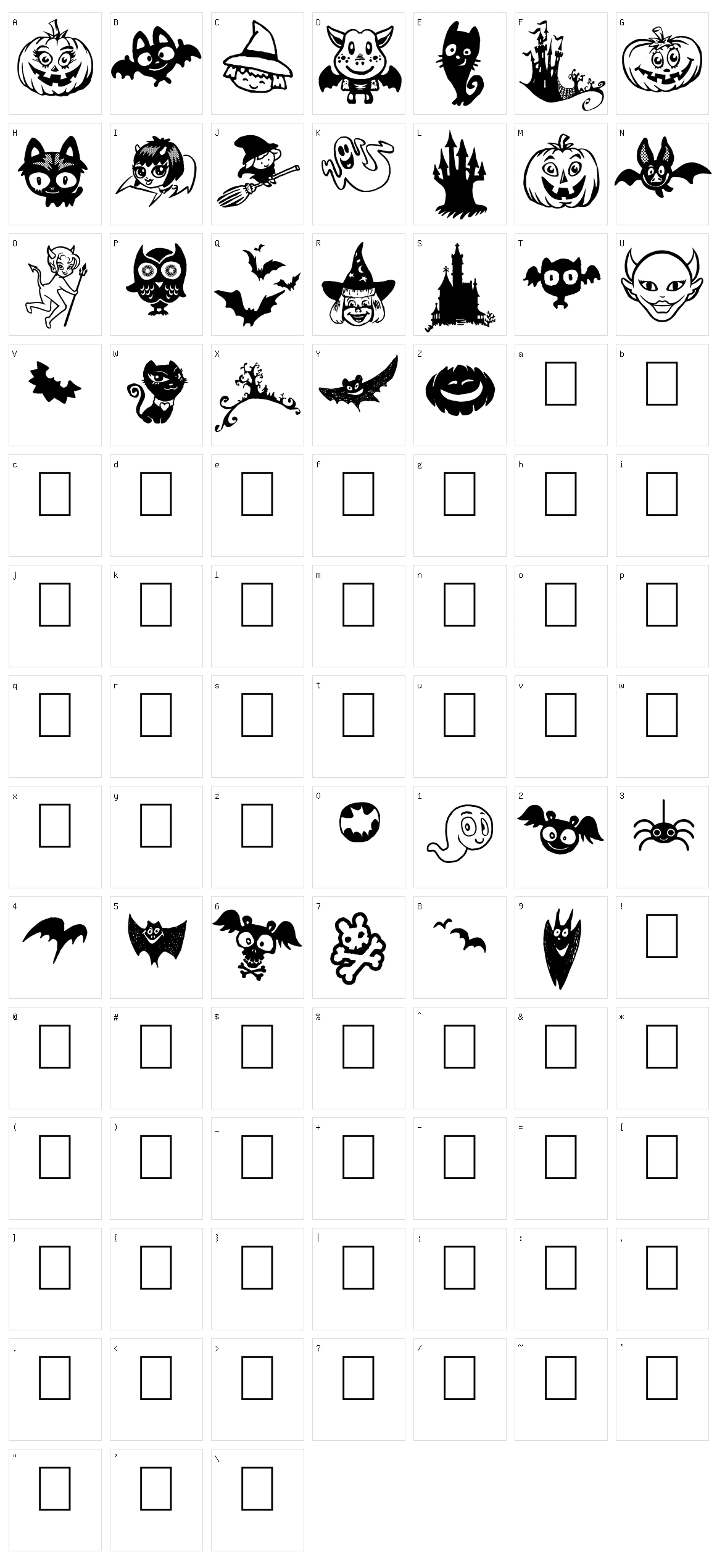
The free font HalloCuties is carefully designed by imagex, showcasing a thoughtful balance of creativity and usability and falls under the Halloween font style. When you download the ZIP file, it contains only 40.37 KB of font files, making it lightweight and quick to download. Please review the license details below to understand permitted usage and distribution rights. If license information is not available, we recommend using this font for personal projects only or contacting the author directly for commercial usage permissions.